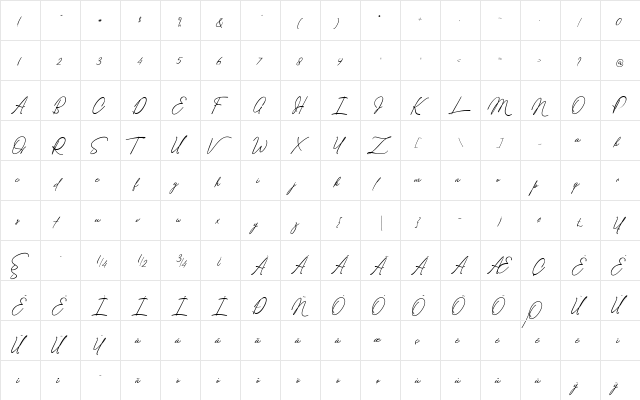
Safarnama Signature Regular
| Foundry | Khalidin.Ink |
| Designer | Nurkhalidien |
Design Context for Safarnama Signature Typeface
Safarnama Signature is a composed and adaptable typeface that performs quietly and consistently across a wide range of design contexts.